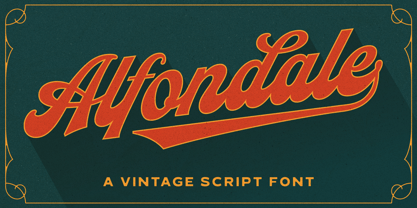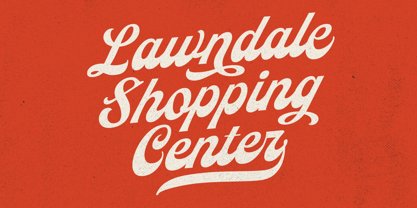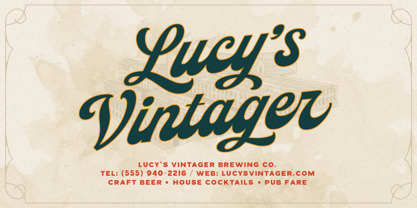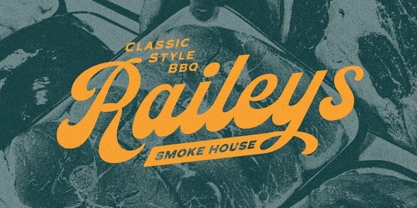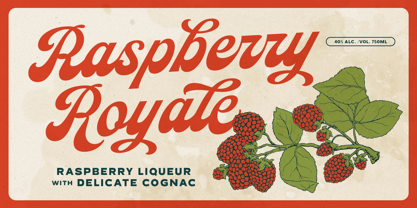
Alfondale
by Ironbird Creative
The Alfondale Font Family was designed by Bagas Ferdiansah, Septianto Nugroho and published by Ironbird Creative. Alfondale contains 1 styles. More about this family
Alfondale is a bold vintage script typeface inspired by classic retro lettering and old-school signage. Perfect for branding, packaging, restaurant logos, liquor labels, badges, signage, t-shirt designs, posters, quotes, and other retro-inspired graphic projects. We hope you enjoy the font, please feel free to comment if you have any thoughts or feedback. Thanks for purchasing and have fun! Regards, Ironbird Creative
Designers: Bagas Ferdiansah, Septianto Nugroho
Foundry: Ironbird Creative